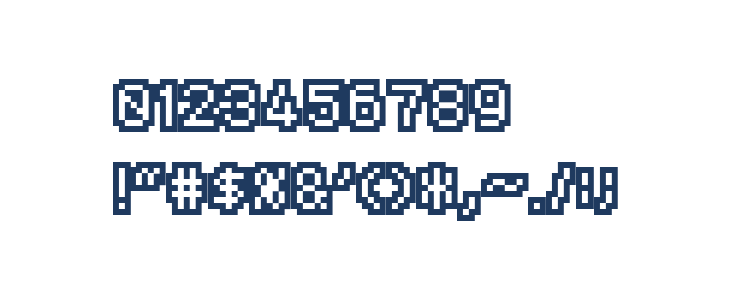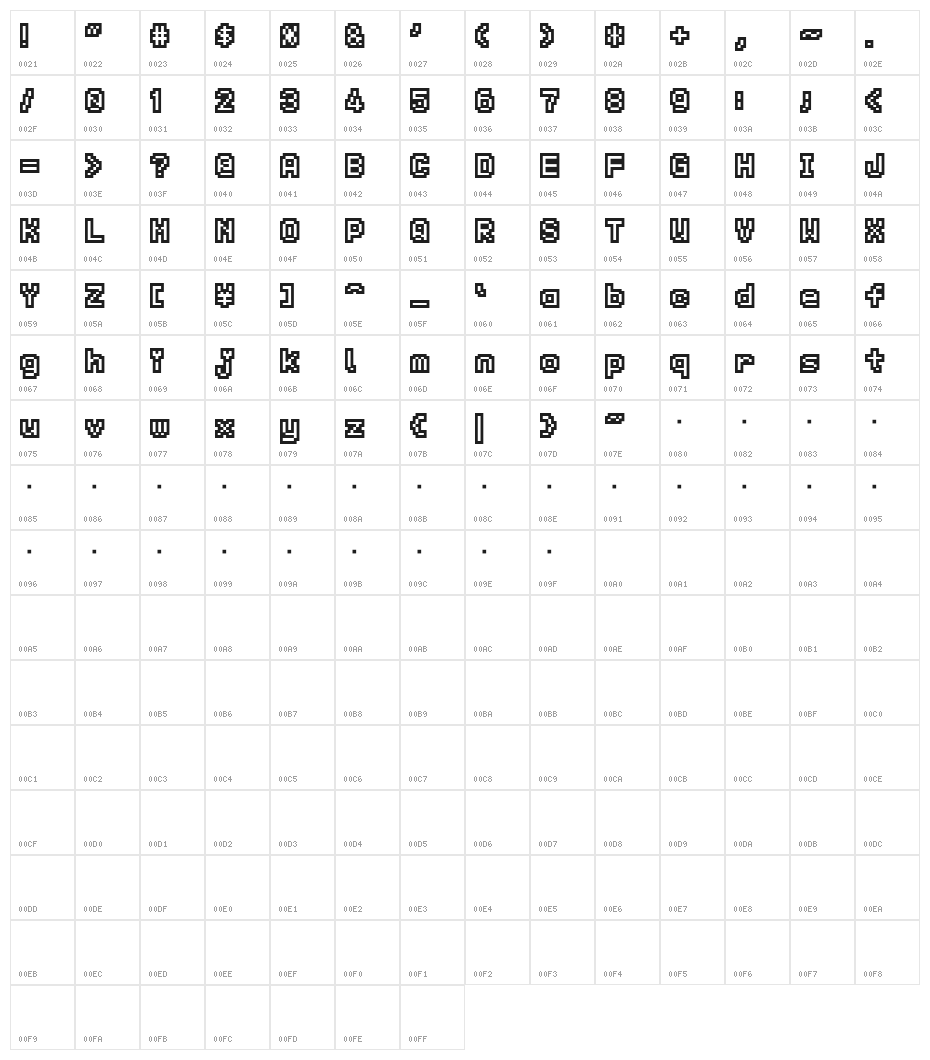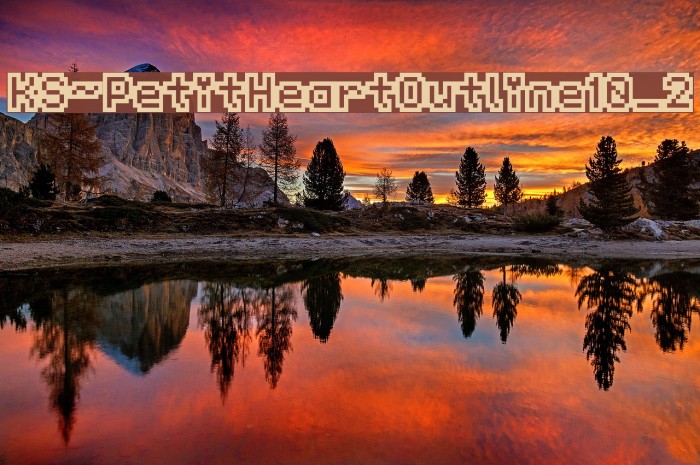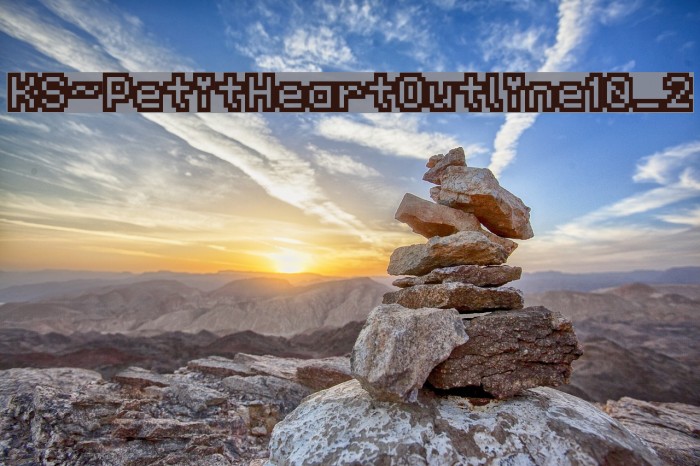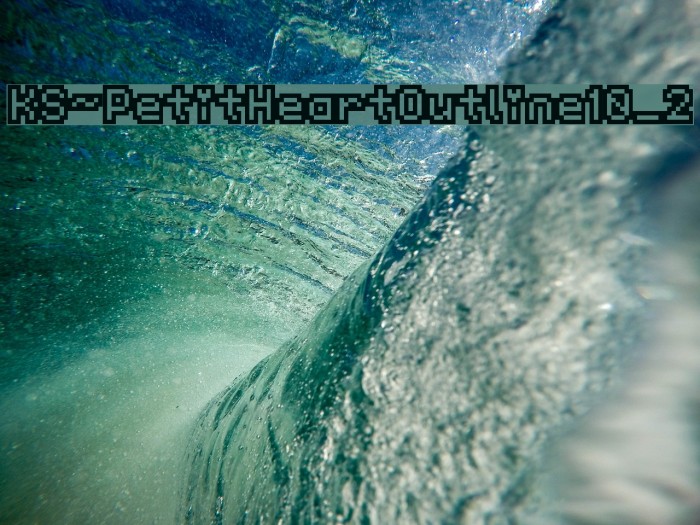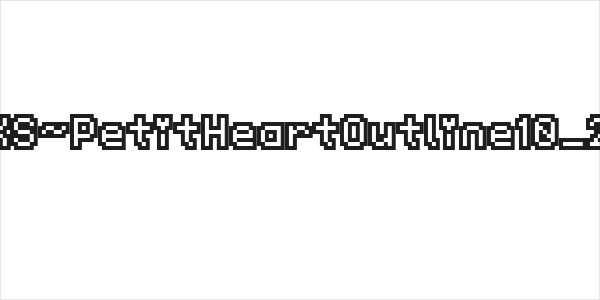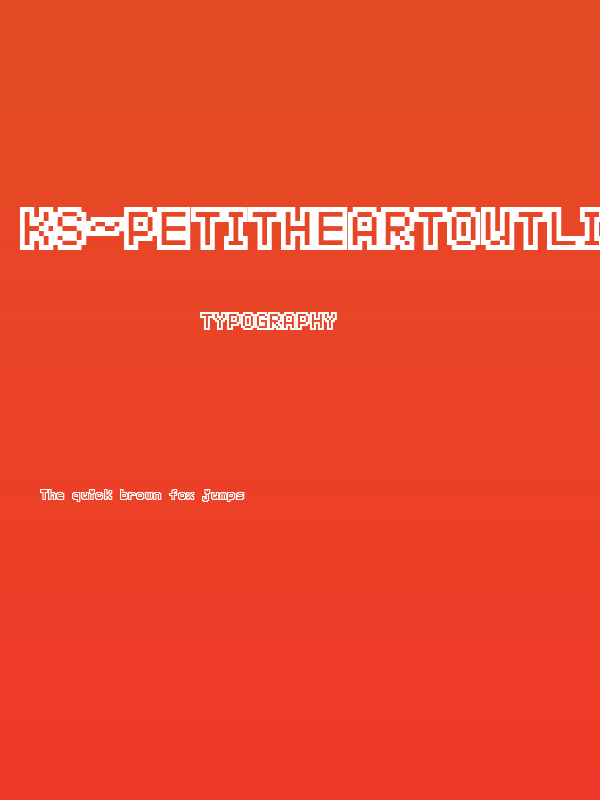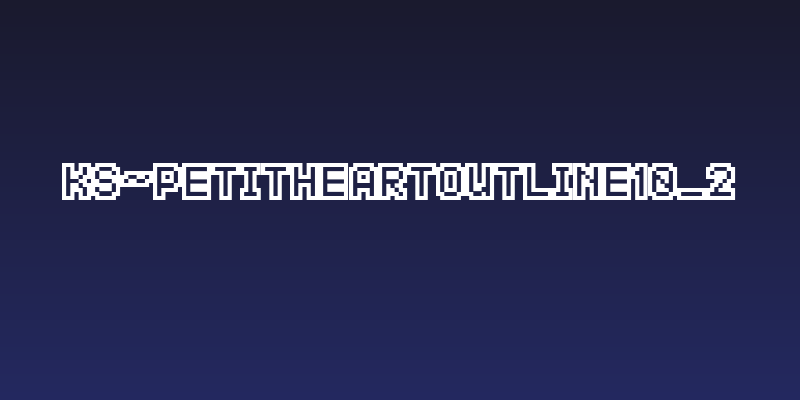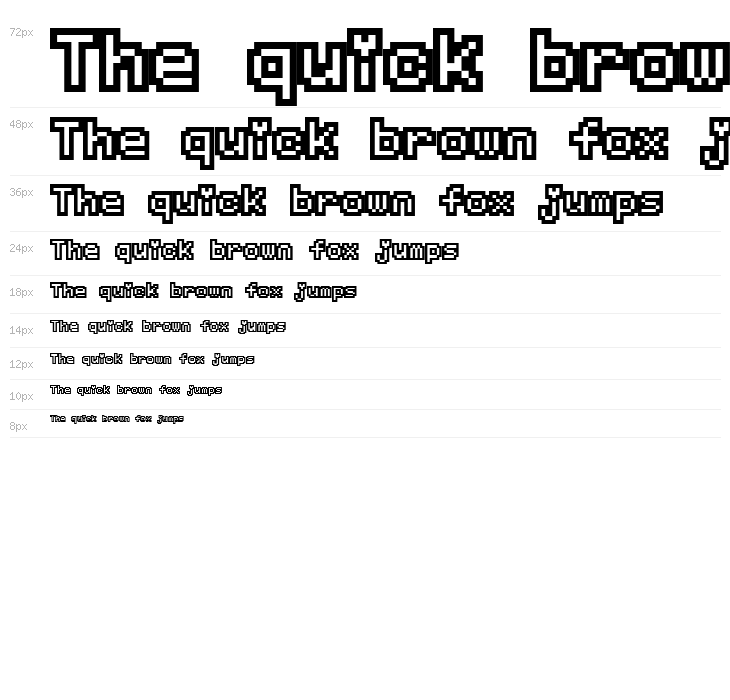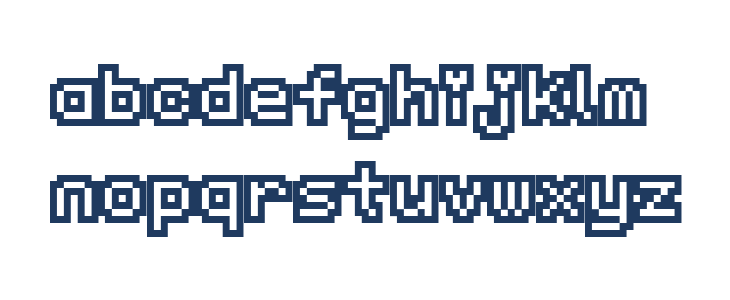
KS-PetitHeartOutline10_2 Font
KS-PetitHeartOutline10_2 Description
This font features a playful and bold outline style with a pixelated, retro aesthetic. Each character is constructed with a blocky, grid-like design, reminiscent of early digital or video game typography. The outline effect gives it a unique, eye-catching appearance, making it stand out in any design. The uppercase and lowercase letters maintain a consistent height, while the numbers and special characters are crafted to match the overall style. The font's distinct look is both nostalgic and modern, appealing to those who appreciate a vintage digital feel.
| Overall Style | Retro, Playful |
| Proposed Projects | Ideal for video game graphics, retro-themed posters, digital art, and playful branding. |